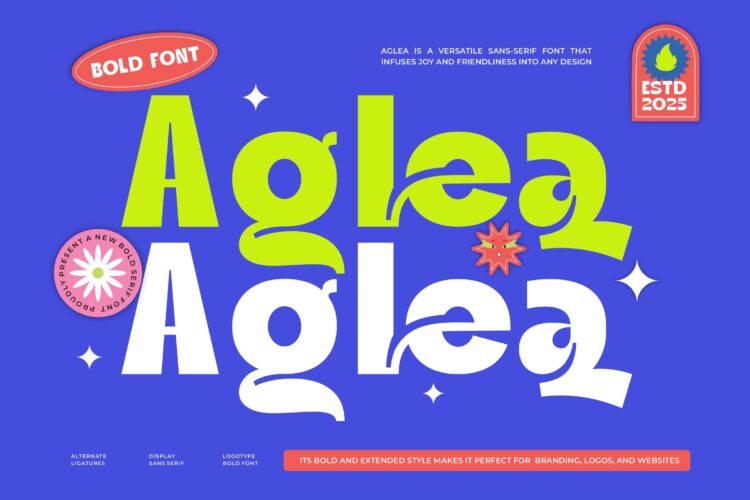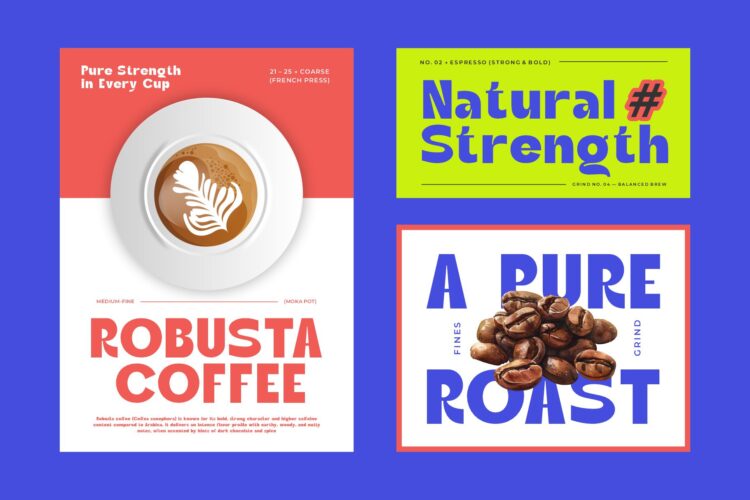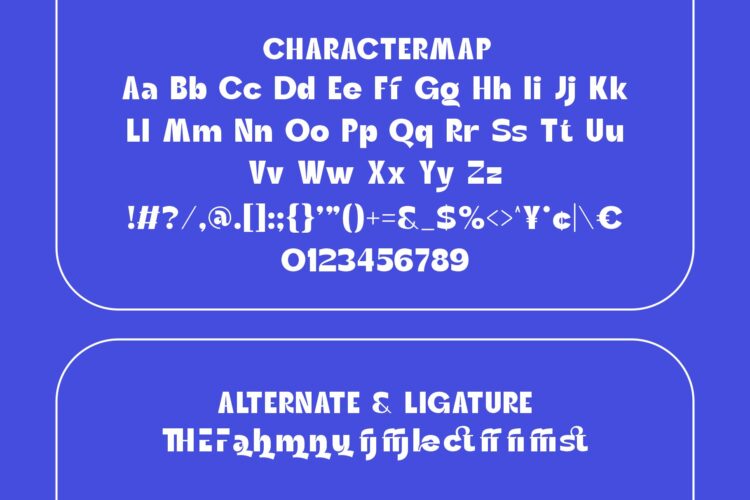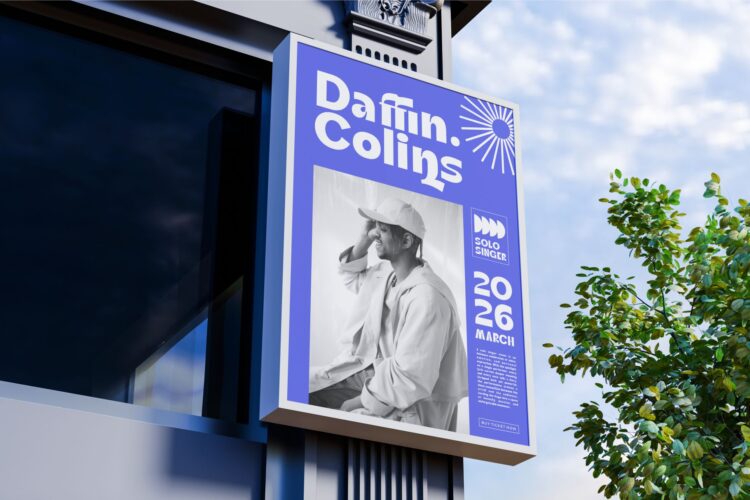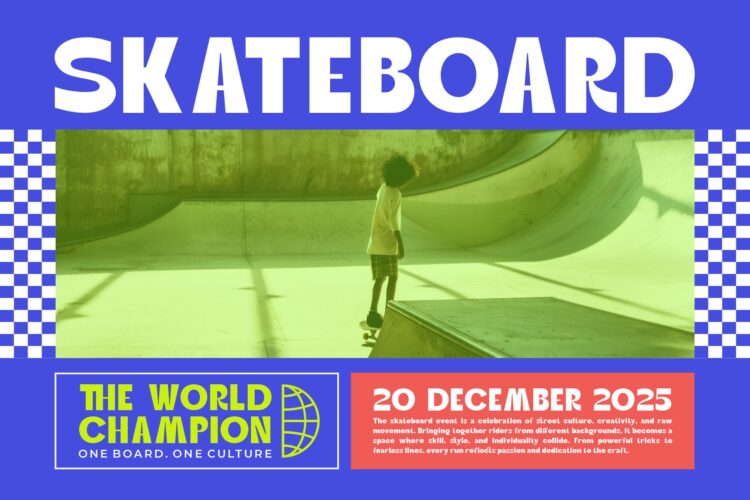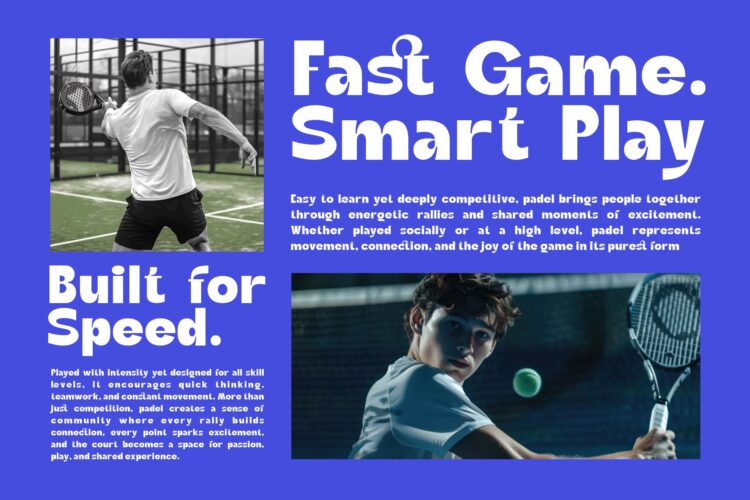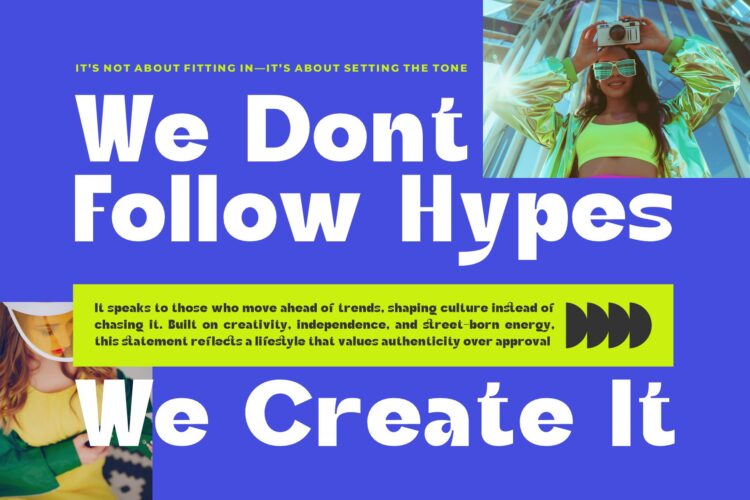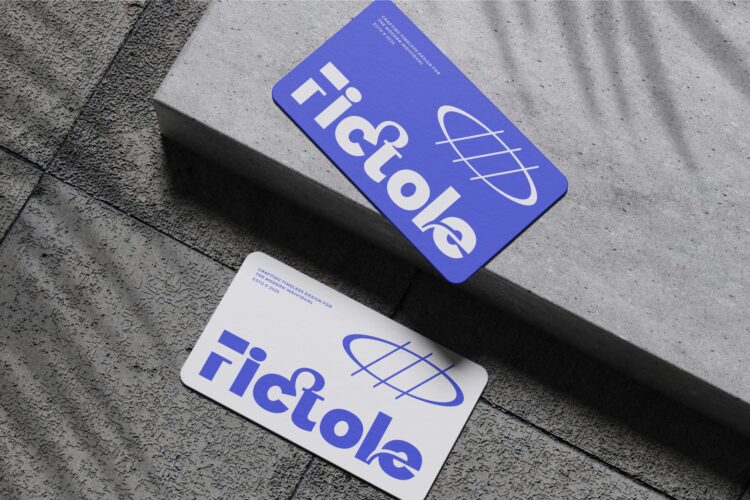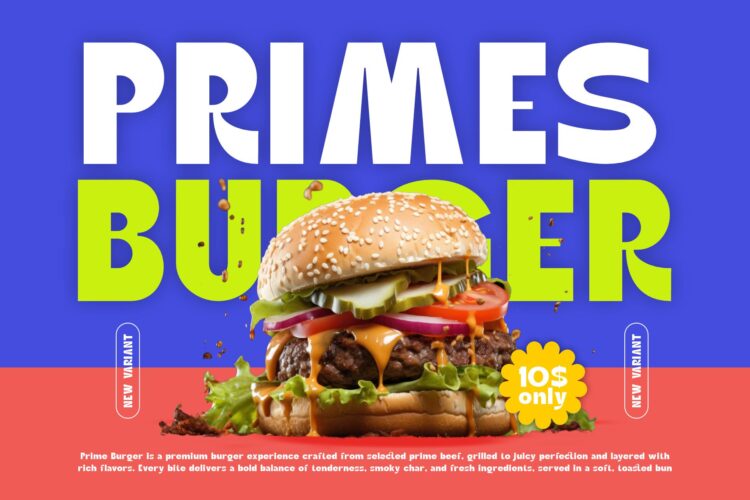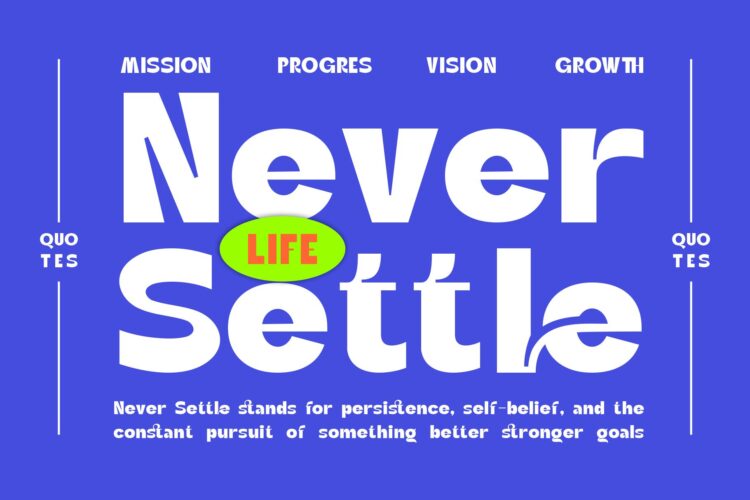
Aglea Modern Bold Sans Serif is a modern and versatile font type for all branding and logo designs. This modern and versatile Serif font has a beautiful character. This font is suitable for invitation card designs, cool logos, movie titles, movie names, business cards, book titles, brand names, and various other designs. Aglea Modern Bold Sans Serif is a smooth serif font that exudes sophistication and the moment. Its stylish ligatures make this font a perfect partner for any project.